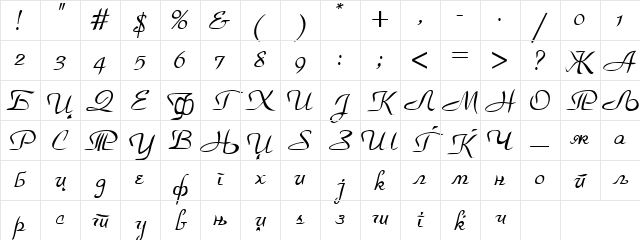
Complete C_ParkAvenueKIR Extra-Light glyph index. Displaying only characters natively supported by C_ParkAvenueKIR Extra-Light font.
C_ParkAvenueKIR is a composed and adaptable typeface that performs quietly and consistently across a wide range of design contexts. Its slender proportions lend an understated elegance to any composition.